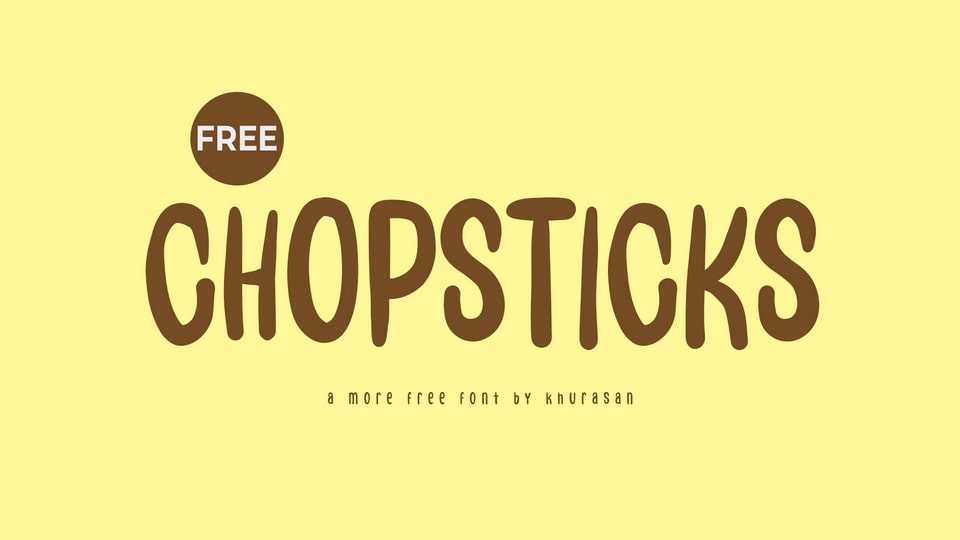
Download Chopsticks font, a fun and friendly display typeface with a hand-drawn charm. Its tall, rounded letters and slightly irregular forms give it a warm and approachable look,